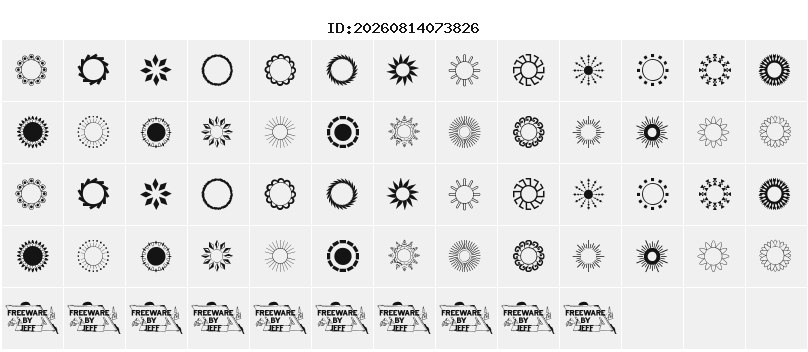
• Font Name: Sundings 2 JL
• Designer: Jeffrey N. Levine
• Manufacturer: Jeff's Fonts & Dingbats
• Description: An additional collection of sun designs for decoration or borders.